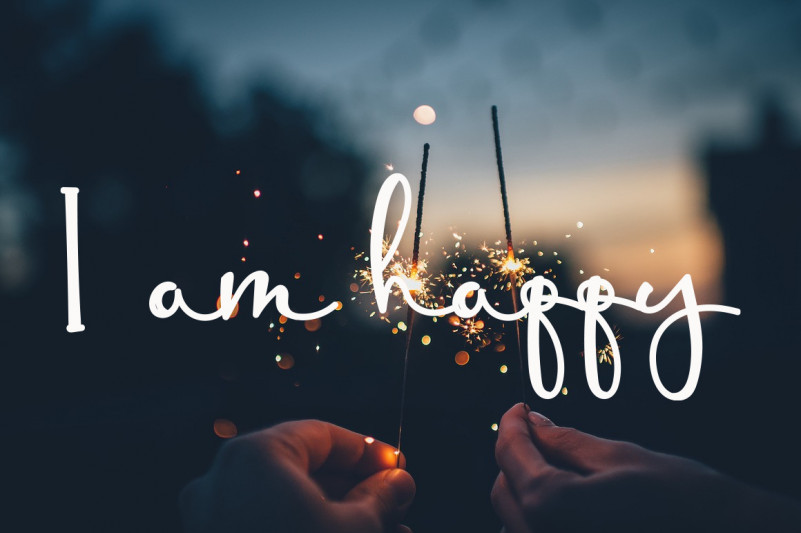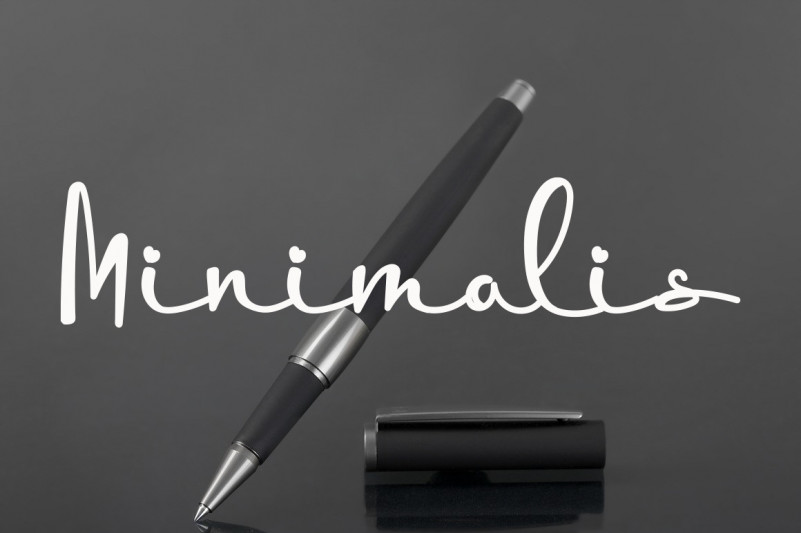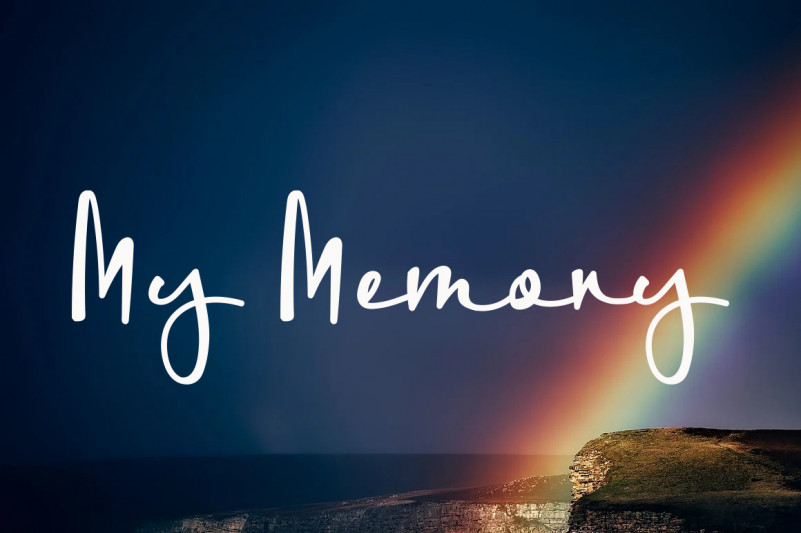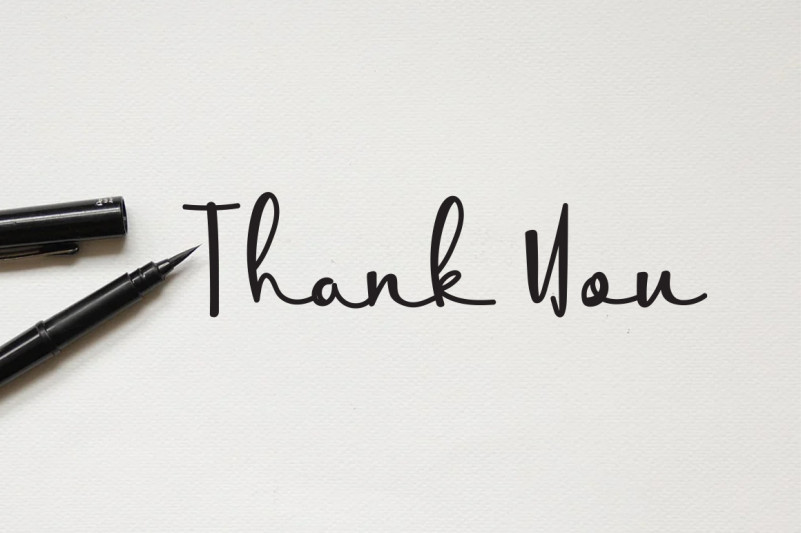
Vintage Sunflower Script Font
This is a magical handwritten font. Flowing and elegantly cursive, this font is suitable for your most exquisite projects!